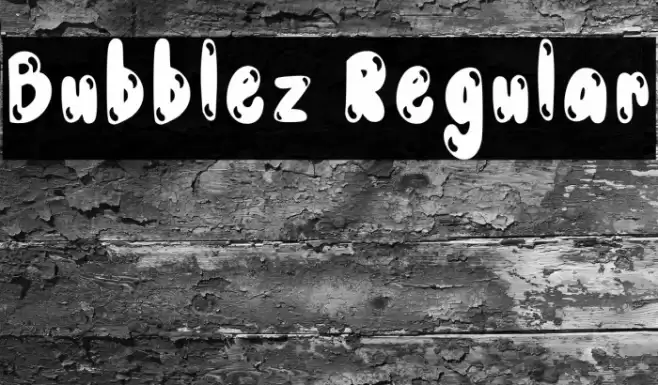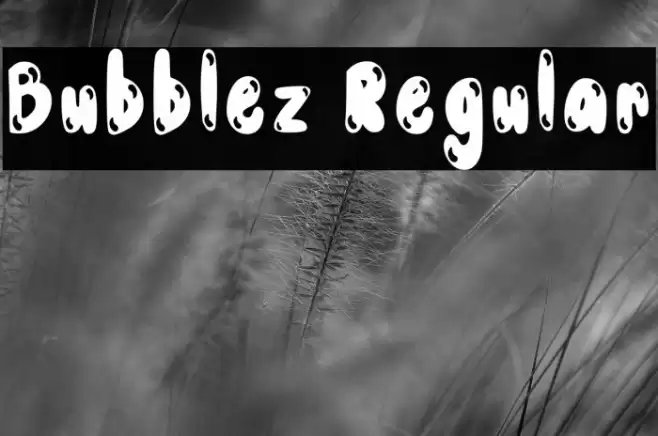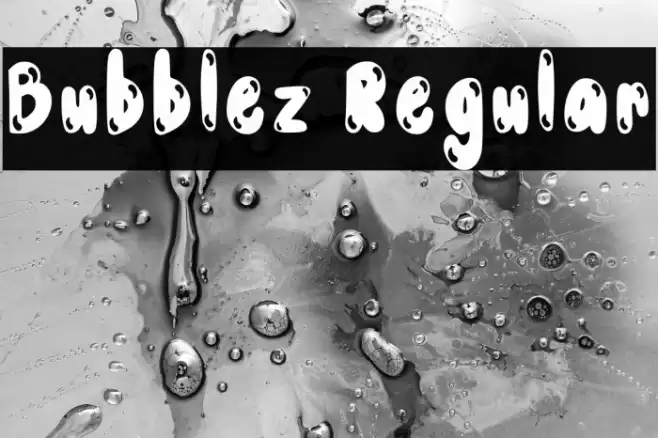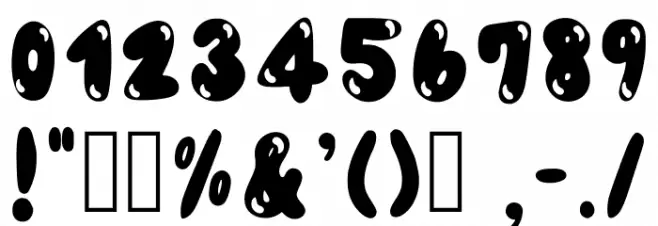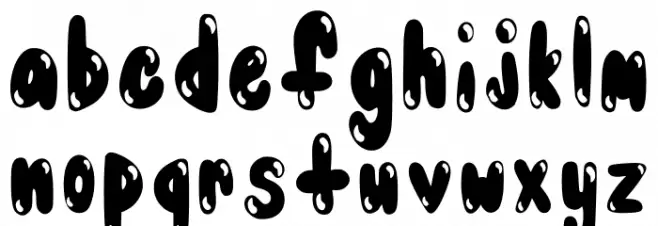
Bubblez Regular Font
Bubblez Regular Description
This playful and whimsical font features bold, rounded characters with a bubbly appearance. Each letter is designed with a unique, organic shape that gives it a lively and fun aesthetic. The font is characterized by its thick strokes and smooth curves, creating a sense of movement and energy. The letters are evenly spaced, ensuring readability while maintaining their distinctive style. The numbers and special characters follow the same design principles, making them cohesive with the alphabet. This font is perfect for projects that require a touch of creativity and joy.
A playful, bubbly font with bold, rounded characters and a whimsical style from Cartoon fonts.
- Proposed Projects: Ideal for children's books, playful branding, party invitations, and creative posters.
- Overall Style: Playful, Whimsical